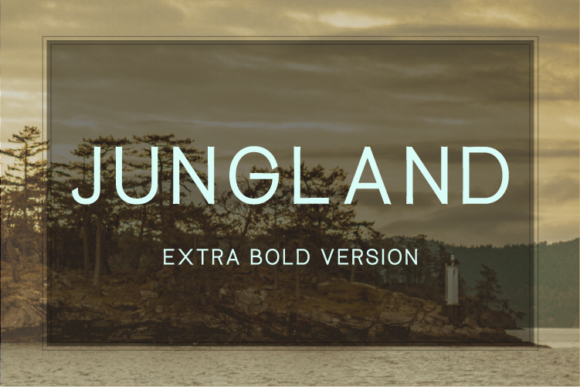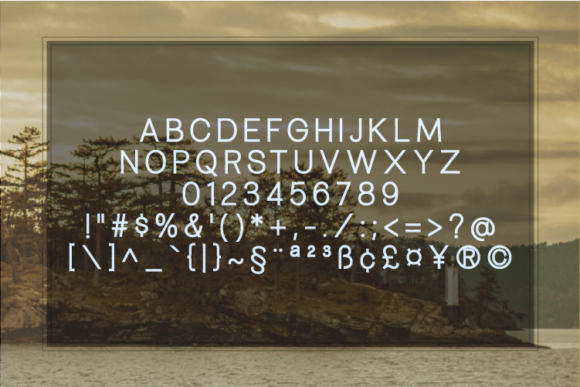
Jungland is a geometric font family with a warm, engaging style. Inviting and versatile, Jungland’s subtle imperfections and human tone make it great for headlines, quotes, and short text.